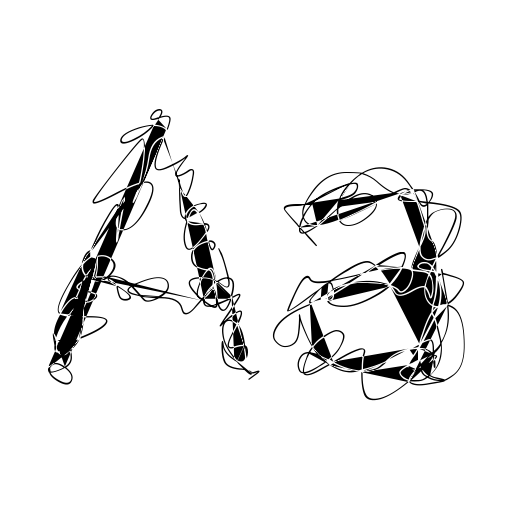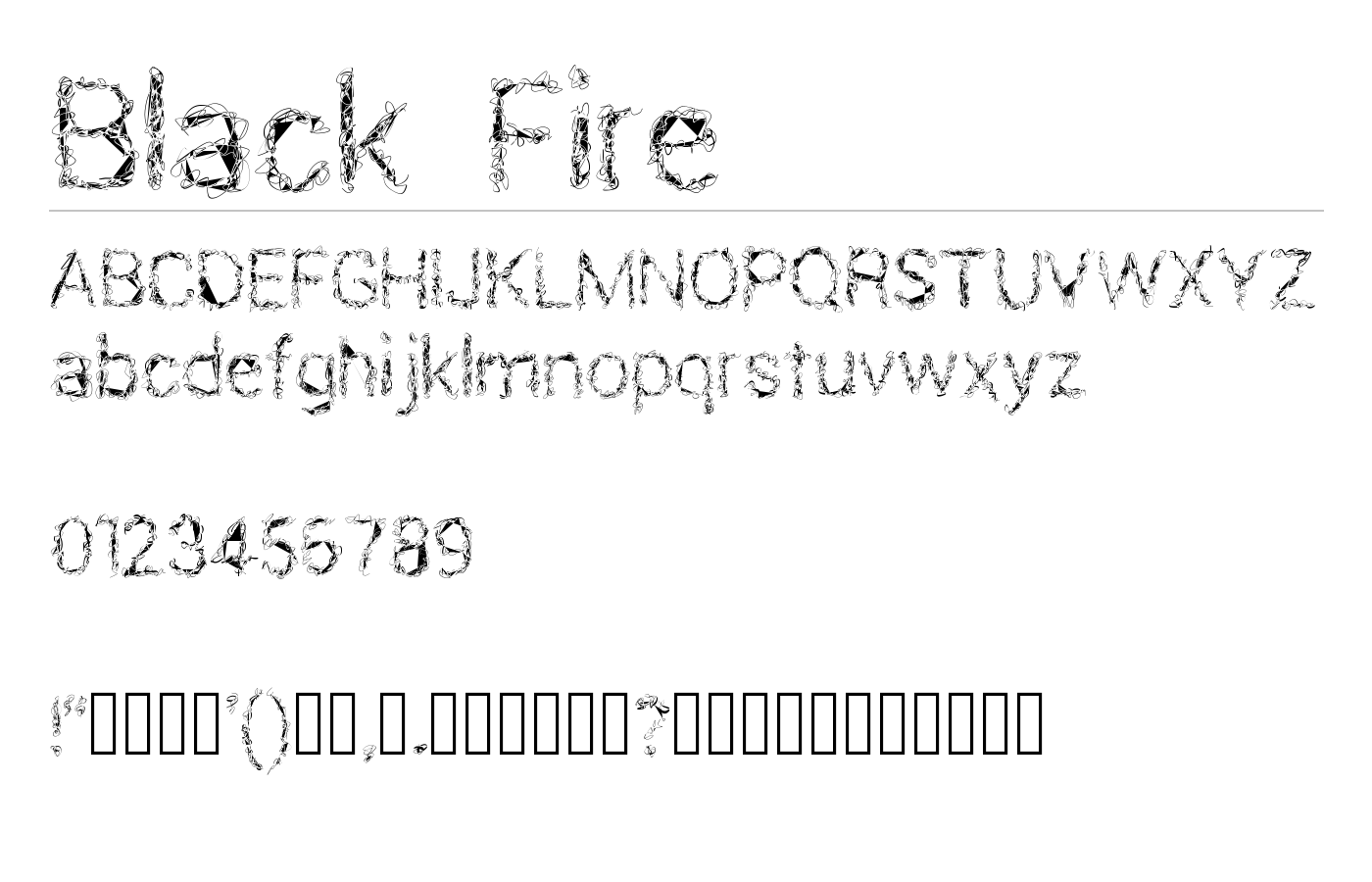
Black Fire is a decorative, handwritten-style font with a unique, intricate design that mimics flickering flames or tangled lines forming each character. Its light weight and airy structure create a playful, artistic feel, making it ideal for creative projects, posters, and expressive branding where a lively, eye-catching look is desired. This font works best in display settings rather than body text due to its detailed and ornamental nature.
Black Fire Font
About Black Fire Font